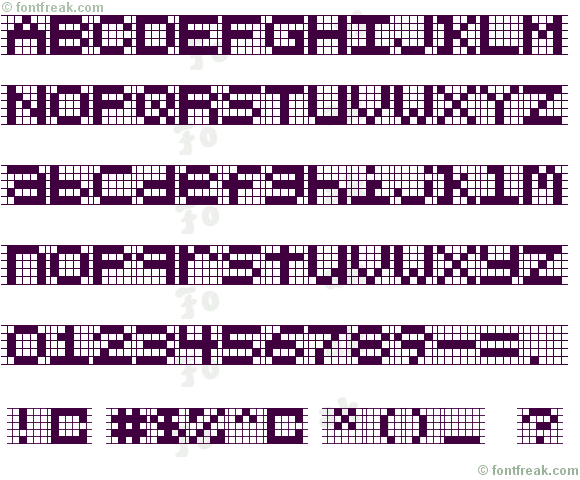
Chlorenuf
About Chlorenuf
Chlorenuf, designed by Caffeen, is a striking display font that captures attention with its unique, blocky characteristics. This freeware font boasts a geometric style, featuring bold, angular forms that create a contemporary yet playful aesthetic. The stroke weight is uniform, contributing to a cohesive appearance, while the ample spacing between characters ensures clarity and readability. The design is marked by a distinctive combination of straight lines and sharp corners, giving it a modern edge that stands out in various applications.
Chlorenuf is particularly well-suited for a range of creative projects. Its bold nature makes it an excellent choice for eye-catching movie posters, where it can draw viewers in with its dynamic presence. Additionally, it works beautifully on restaurant menus, where the unique style can enhance the overall dining experience. Graphic designers may find it ideal for branding projects, especially for businesses looking to convey a sense of innovation and creativity. Furthermore, Chlorenuf can be used effectively in social media graphics, providing a stylish touch to content shared by content creators and small business owners alike.
The target audience for Chlorenuf includes graphic designers, small business owners, and content creators who are seeking a distinctive font that can elevate their visual branding. Its playful yet bold design makes it versatile for a variety of projects, ensuring it meets the needs of those looking to make a lasting impression.
What sets Chlorenuf apart is its ability to blend modern aesthetics with functionality, making it a fantastic choice for anyone in need of a standout typeface. Don’t miss the opportunity to enhance your design projects with this unique font—Chlorenuf font free download is available for those eager to elevate their creative work.